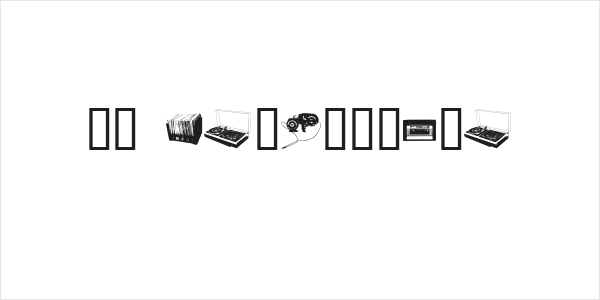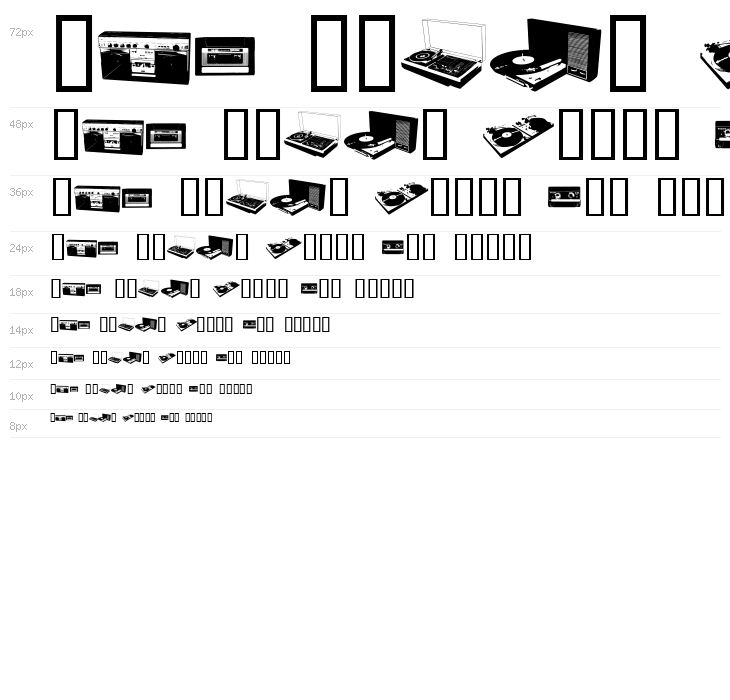
FT dingsprevi Font
FT dingsprevi Description
This is a dingbat or icon font featuring various retro music and audio equipment illustrations, such as turntables, cassette tapes, headphones, and record players. The glyphs are detailed, black-and-white silhouettes, designed for decorative or thematic use rather than standard text.
| Overall Style | Decorative, Retro |
| Use Case | Icons, Decorative elements, Thematic graphics |
| Proposed Projects | Music event posters, album covers, DJ branding, retro-themed designs, flyers, and social media graphics. |